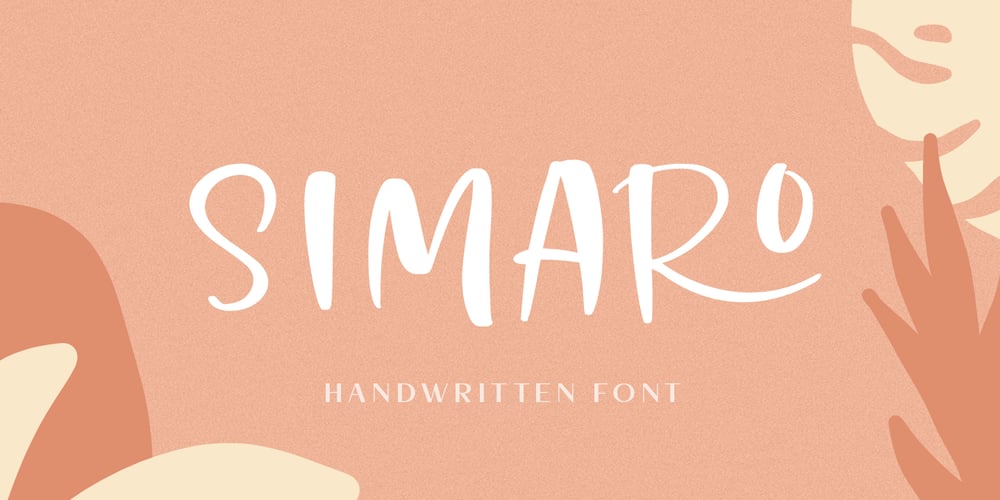
Simaro
Simaro font
Simaro Font Family was designed by Pavel Larin and published by Larin Type Co. Simaro contains 1 styles and family package options. Simaro this is a beautiful upper-case handwritten font with ligatures, alternates, and swashs. playful and relaxed, it will fit perfectly into any project, whether it’s children’s cards or fashion magazines and logos, it will look great everywhere. This font is easy to use has OpenType features and supported PUA encoded.